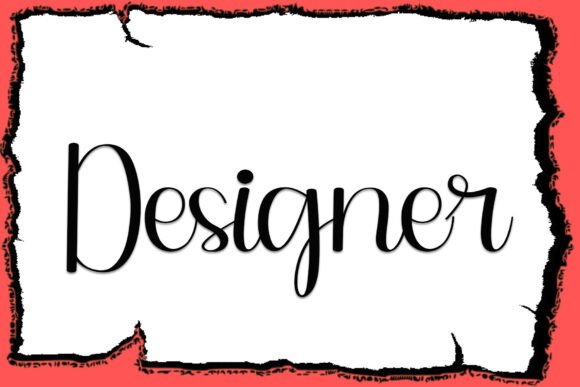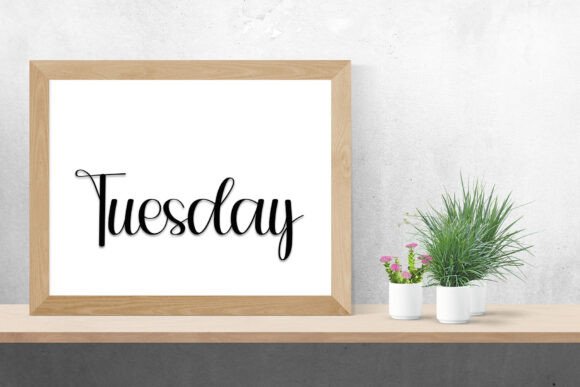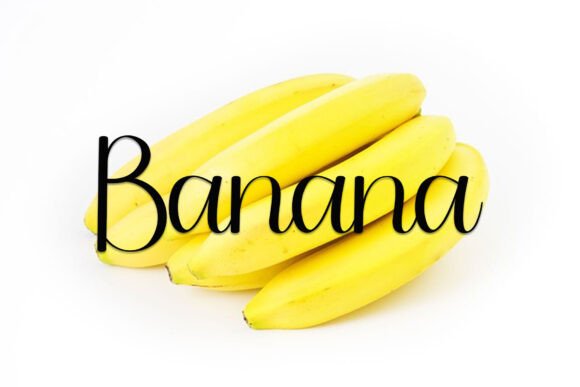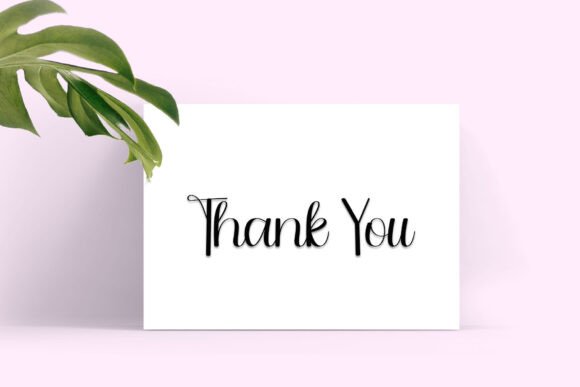
Introducing Hanukkah Font: The Perfect Addition to Your Design Collection
Are you looking for a unique and elegant font to add a touch of sophistication to your designs? Look no further than the Hanukkah Font, a beautiful handwritten font that is sure to capture your heart. With its incredibly distinct and timeless style, this font is perfect for designers and crafters who want to create spectacular designs that stand out from the crowd.
What Makes Hanukkah Font So Special?
Hanukkah Font is a neat and beautiful handwritten font that is described by an elegant touch, making it perfect for a wide range of projects. Whether you’re designing a wedding invitation, a business card, or a social media graphic, this font is sure to add a touch of class and sophistication to your design. Its unique and timeless style is sure to fall in love with, and it’s incredibly versatile, making it suitable for a variety of design applications.
Key Features of Hanukkah Font
- Elegant and Handwritten Style: Hanukkah Font is a beautifully crafted handwritten font that adds a touch of elegance to any design.
- Unique and Timeless Style: This font has an incredibly distinct and timeless style that is sure to make your designs stand out from the crowd.
- Perfect for a Wide Range of Projects: Whether you’re designing a wedding invitation, a business card, or a social media graphic, Hanukkah Font is perfect for a wide range of projects.
- Incredibly Versatile: This font is incredibly versatile, making it suitable for a variety of design applications, from print to digital.
Why Designers and Crafters Love Hanukkah Font
Designers and crafters love Hanukkah Font for its unique and elegant style, which adds a touch of sophistication to any design. Its timeless style ensures that your designs will never go out of style, and its versatility makes it perfect for a wide range of projects. Whether you’re designing for print or digital, Hanukkah Font is the perfect addition to your design collection.
How to Use Hanukkah Font in Your Designs
- Pair it with Other Fonts: Hanukkah Font pairs well with other fonts, so don’t be afraid to experiment with different font combinations.
- Use it for Headings and Titles: Hanukkah Font is perfect for headings and titles, where its elegant and handwritten style can really shine.
In conclusion, Hanukkah Font is a beautiful and elegant handwritten font that is perfect for designers and crafters who want to add a touch of sophistication to their designs. Its unique and timeless style makes it perfect for a wide range of projects, from print to digital. With its incredibly distinct and timeless style, Hanukkah Font is sure to fall in love with, and it’s the perfect addition to your design collection.